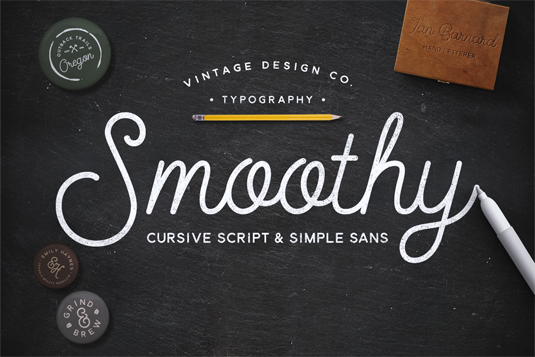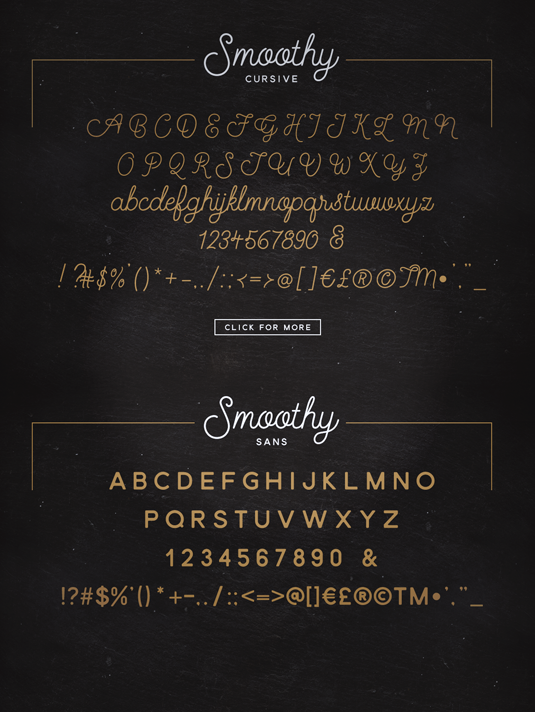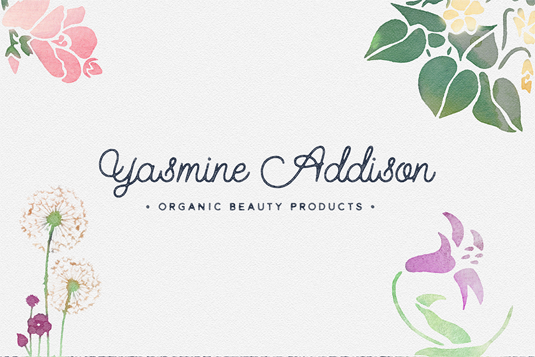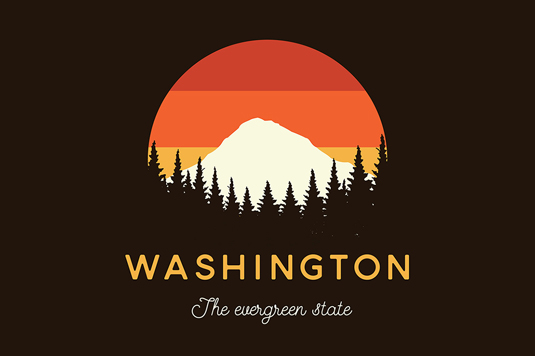
Font of the day: Smoothy
Smoothy by Vintage Design Co
Smoothy is a two-font family with a mono weight cursive script and a complementary subtly rounded sans-serif. The capital flourishes and script style make Smoothy great for logos, prints, quotes, magazine headers and clothing, giving your work a stylish hand-rendered look.